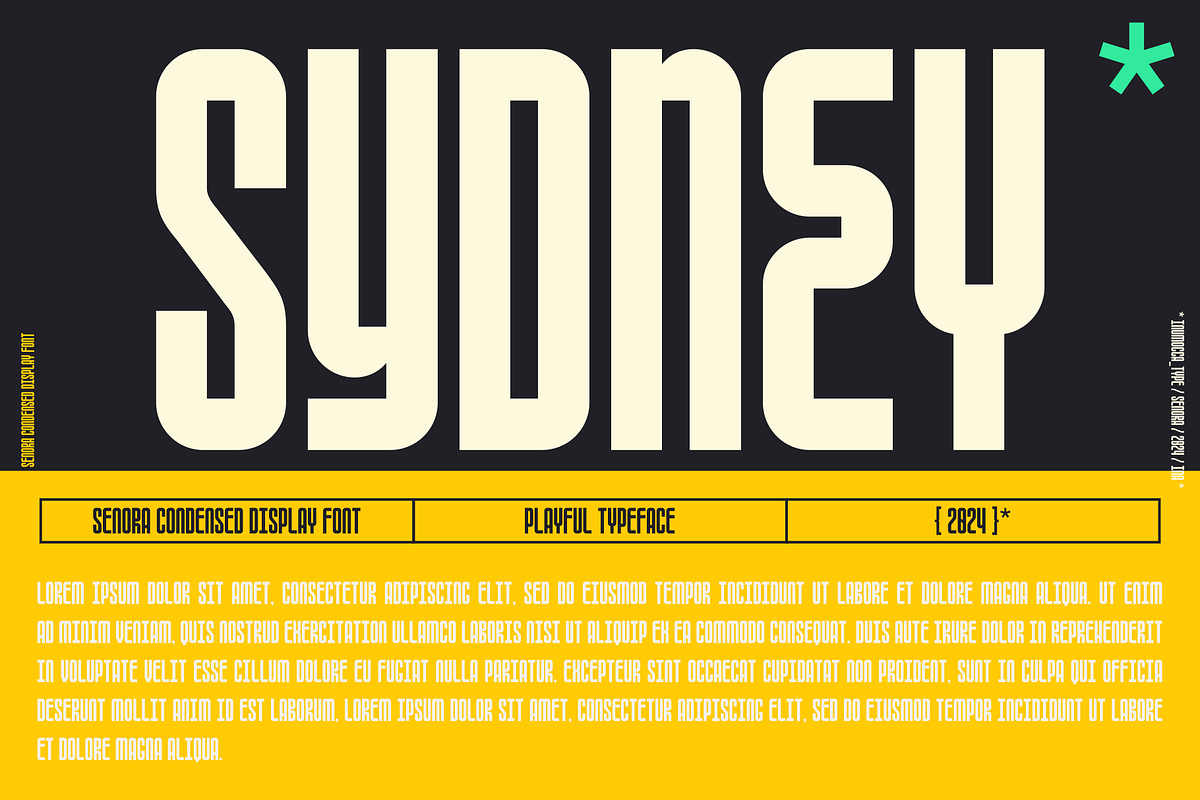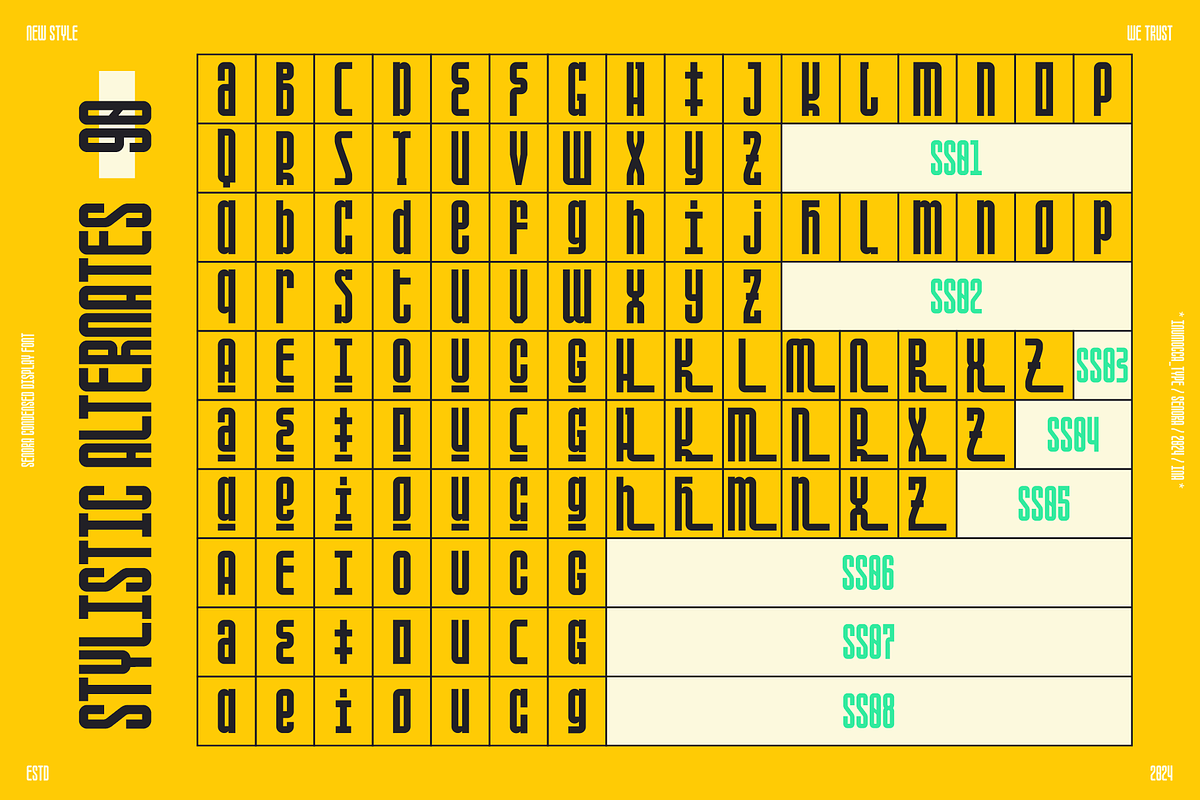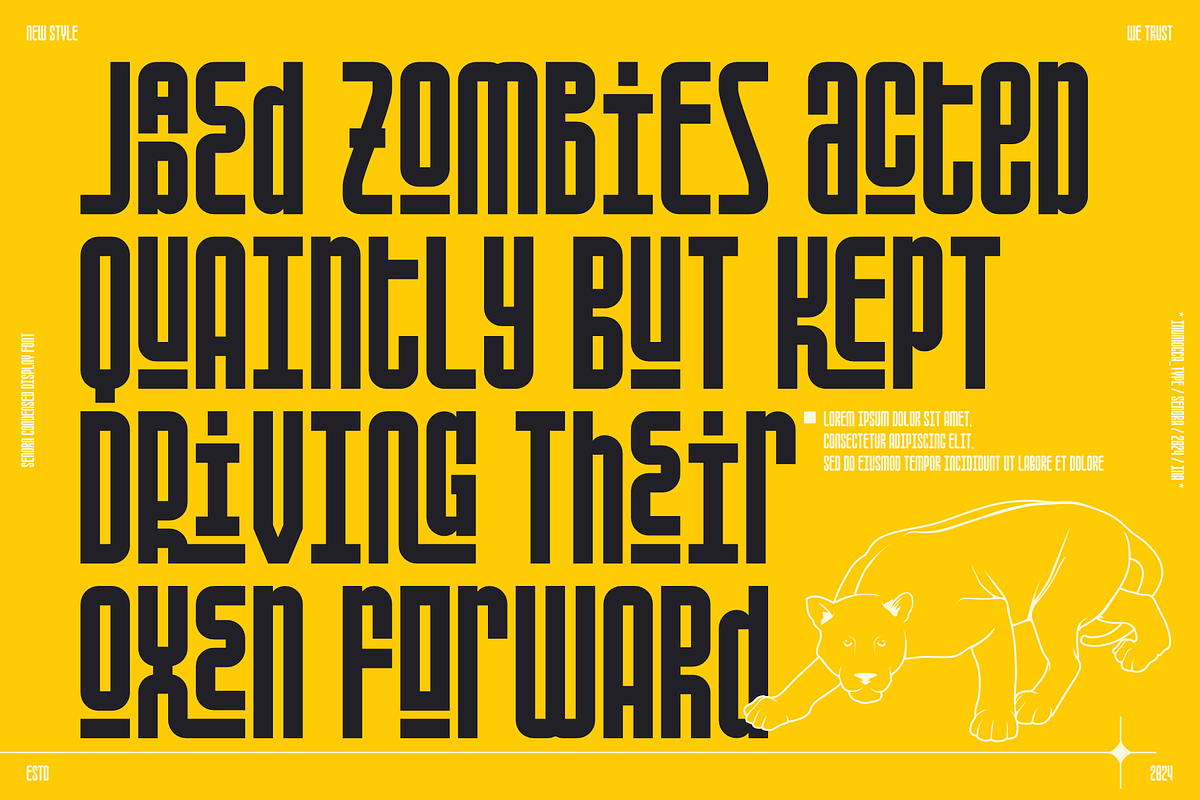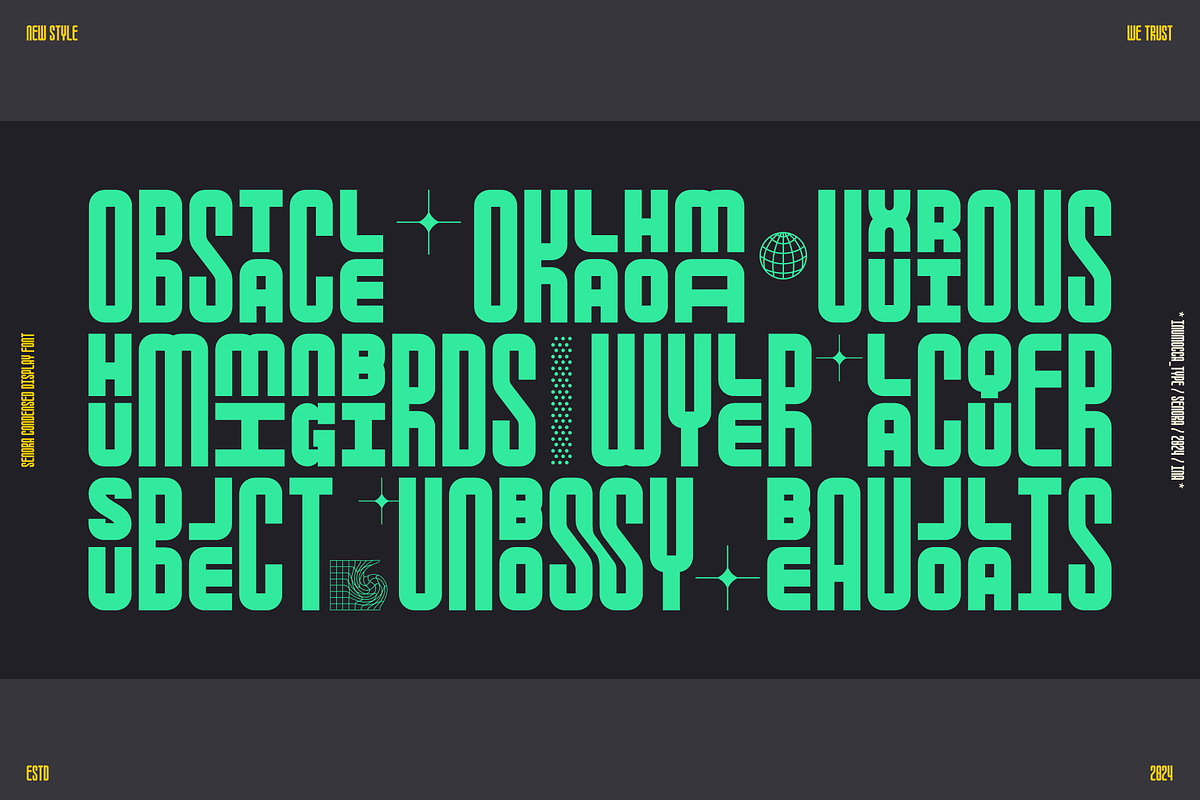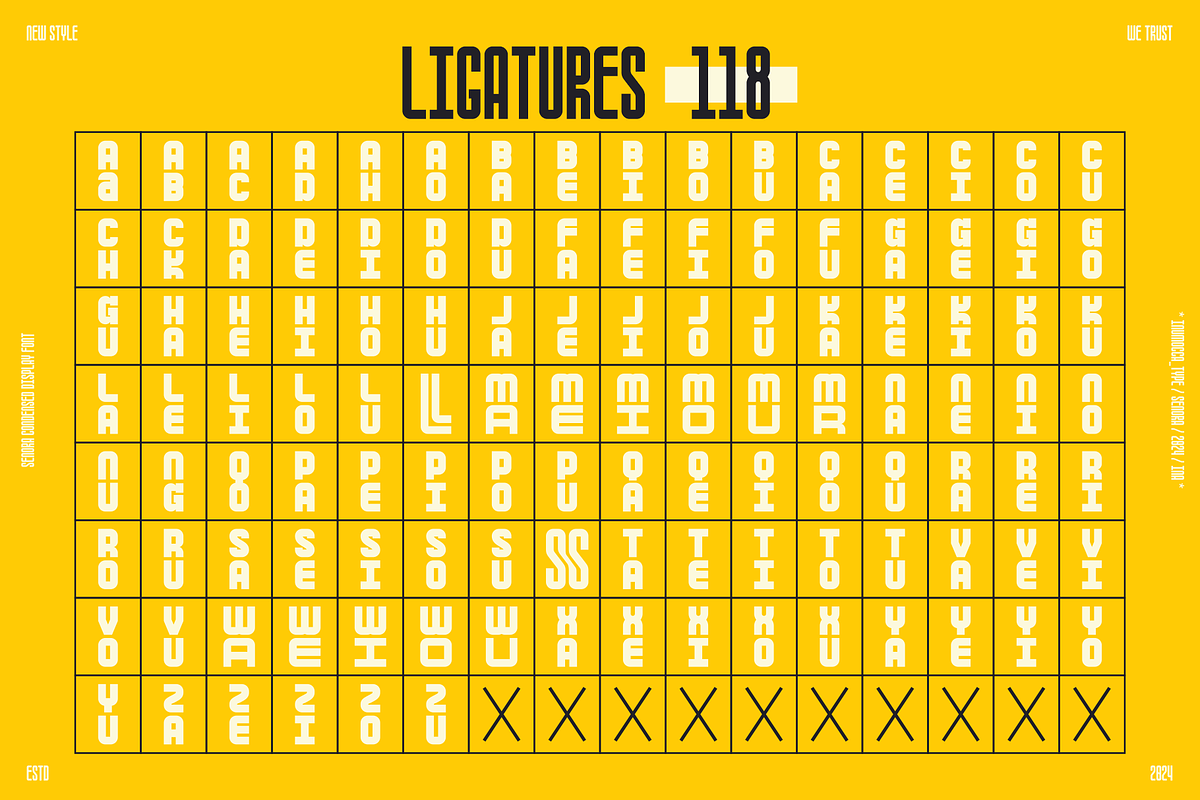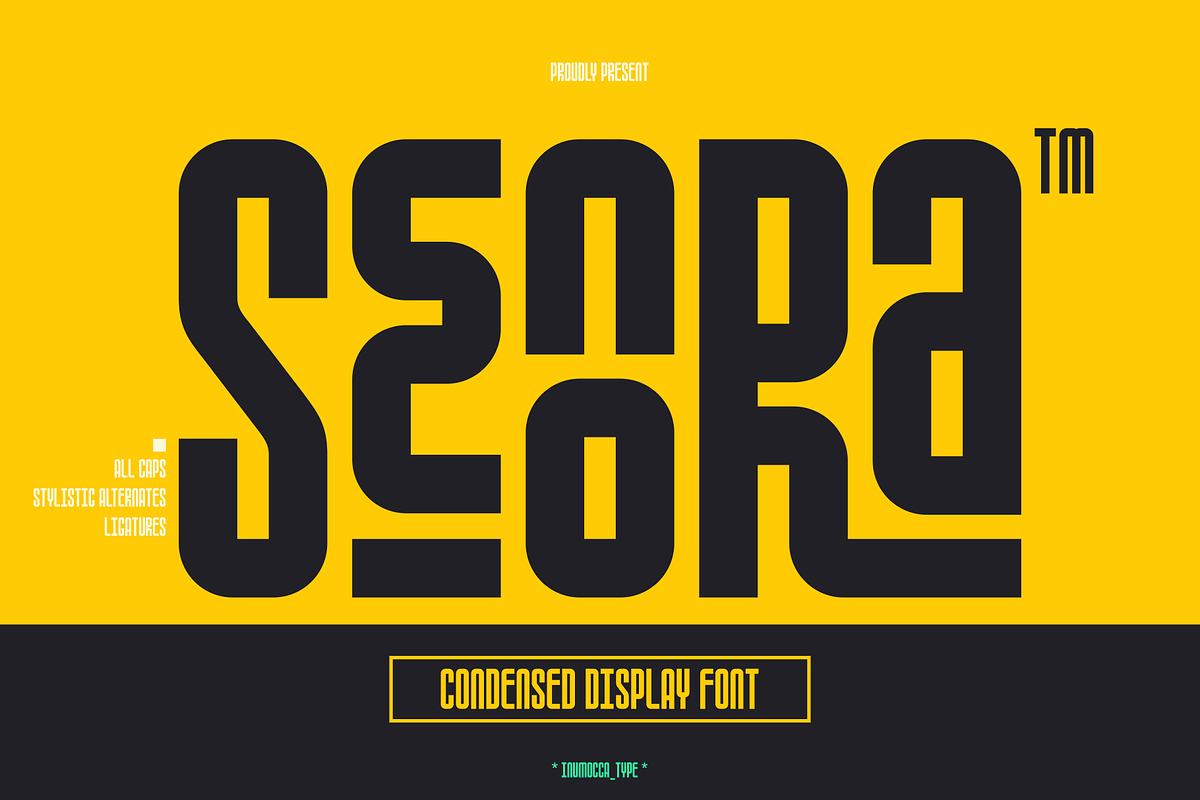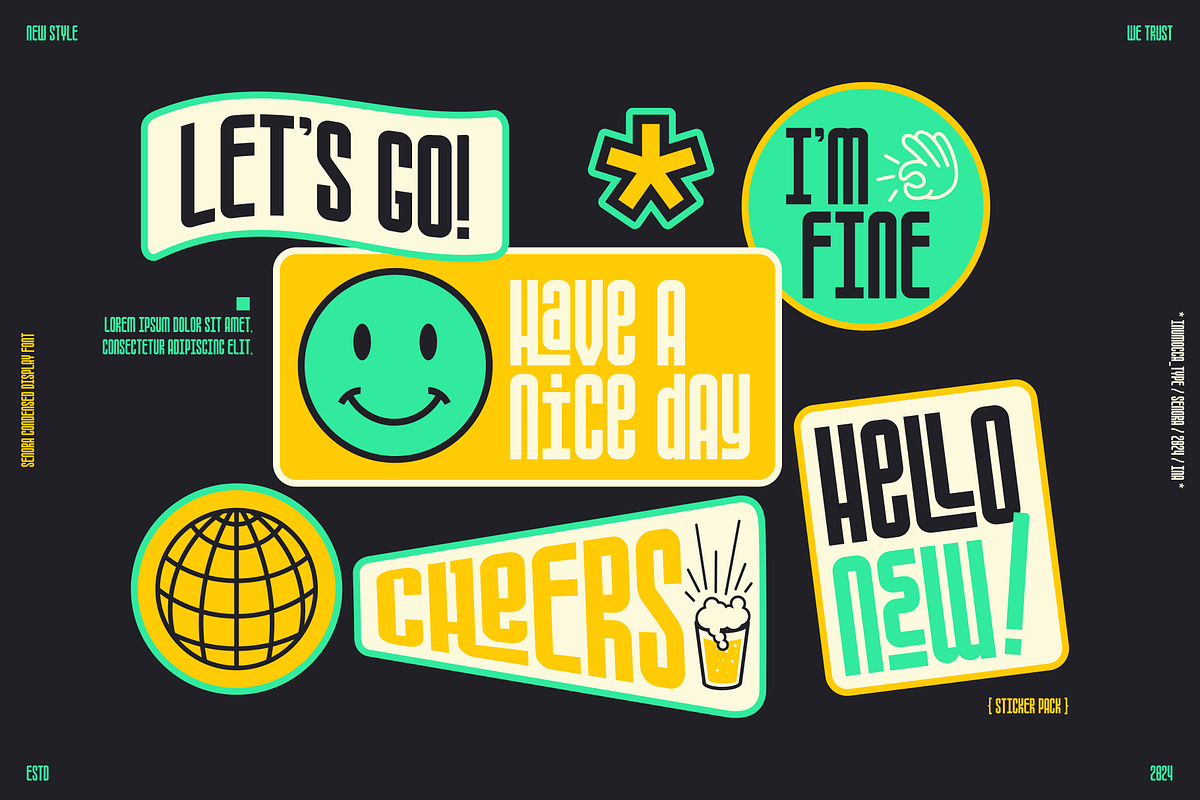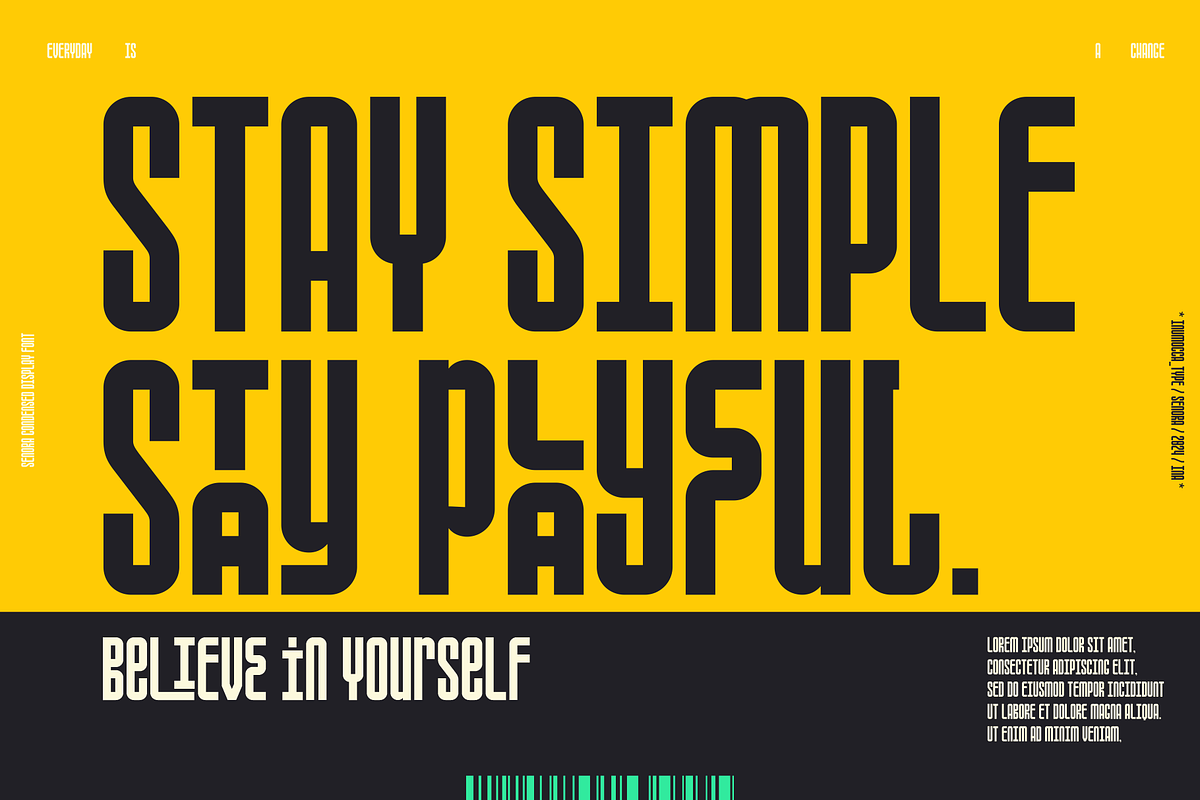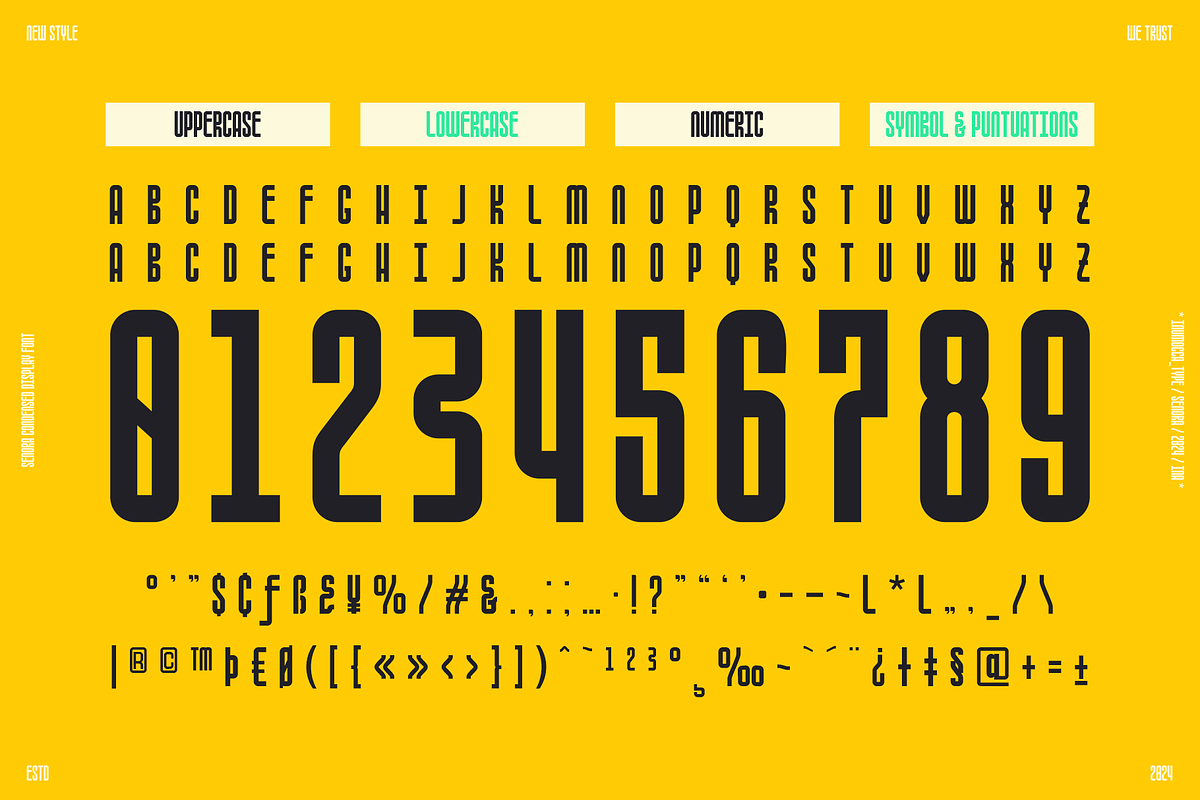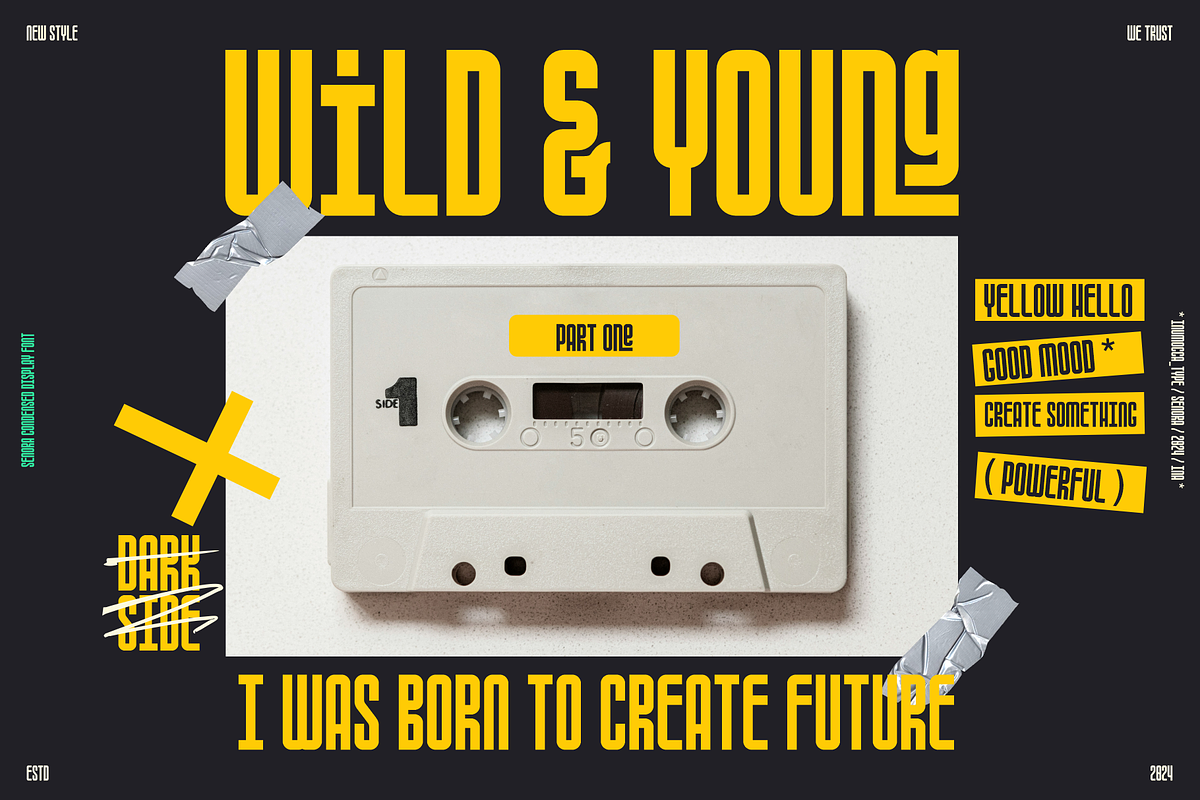
Senora is a Condensed Display font, simpel and powerful font Awesome More Beautiful Ligature Features (118 ligature glyphs) and Stylistic Alternates (90 glyphs). Really playful typeface to covering your Project, like Lettering, Website Interface, Magazine, Branding, Poster, wedding invitations, Quotes Lettering, Logos, and more your project design.
- Unique glyphs
- Multilingual Characters
- UPPERCASE
- Numeric
- Symbol
- Punctuation Character
- Ligature Features (118 glyphs)
- Stylistic Alternates (90 glyphs) ss01,ss02,ss03,ss04,ss05,ss06,ss07,ss08
- All Caps